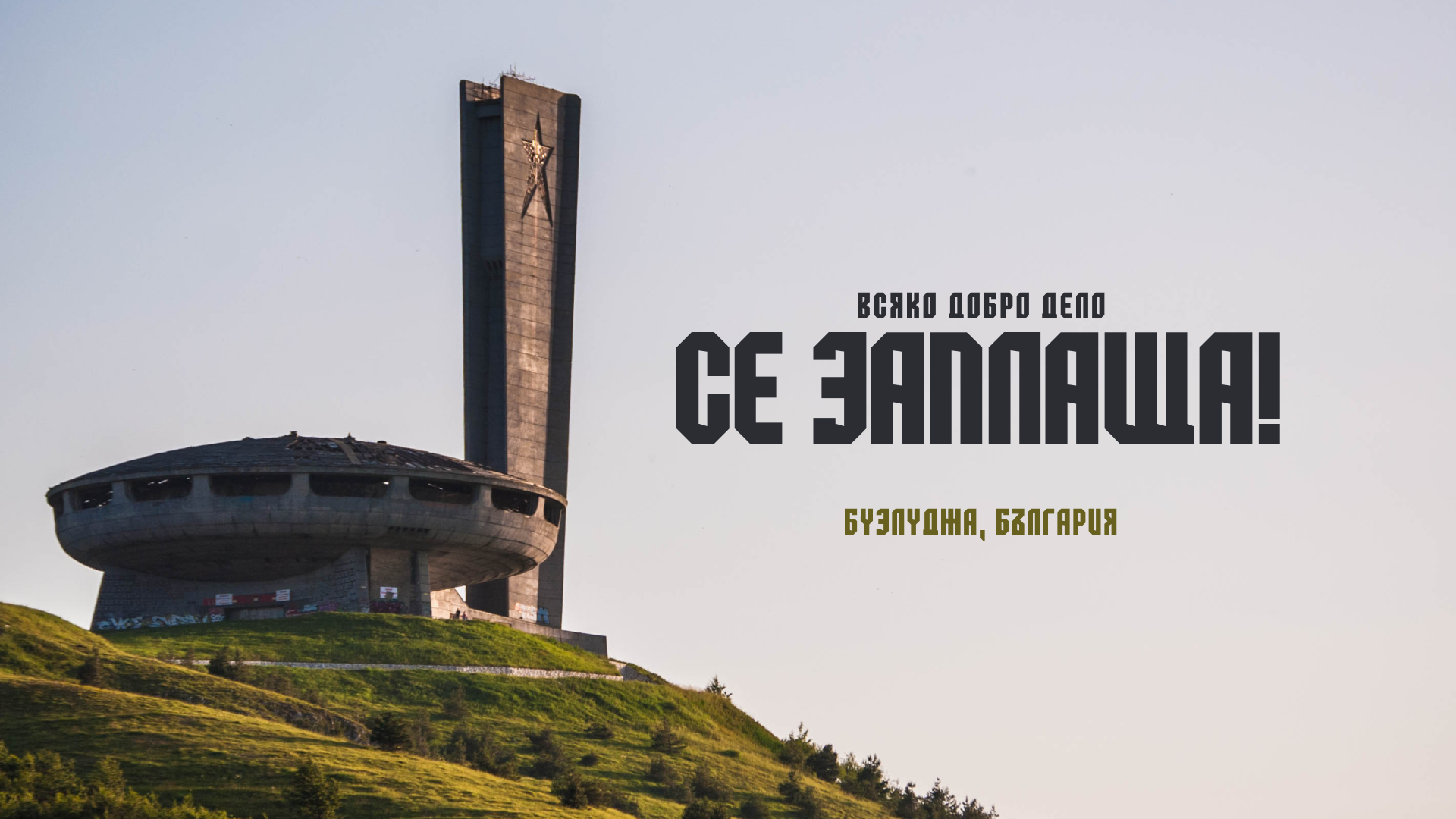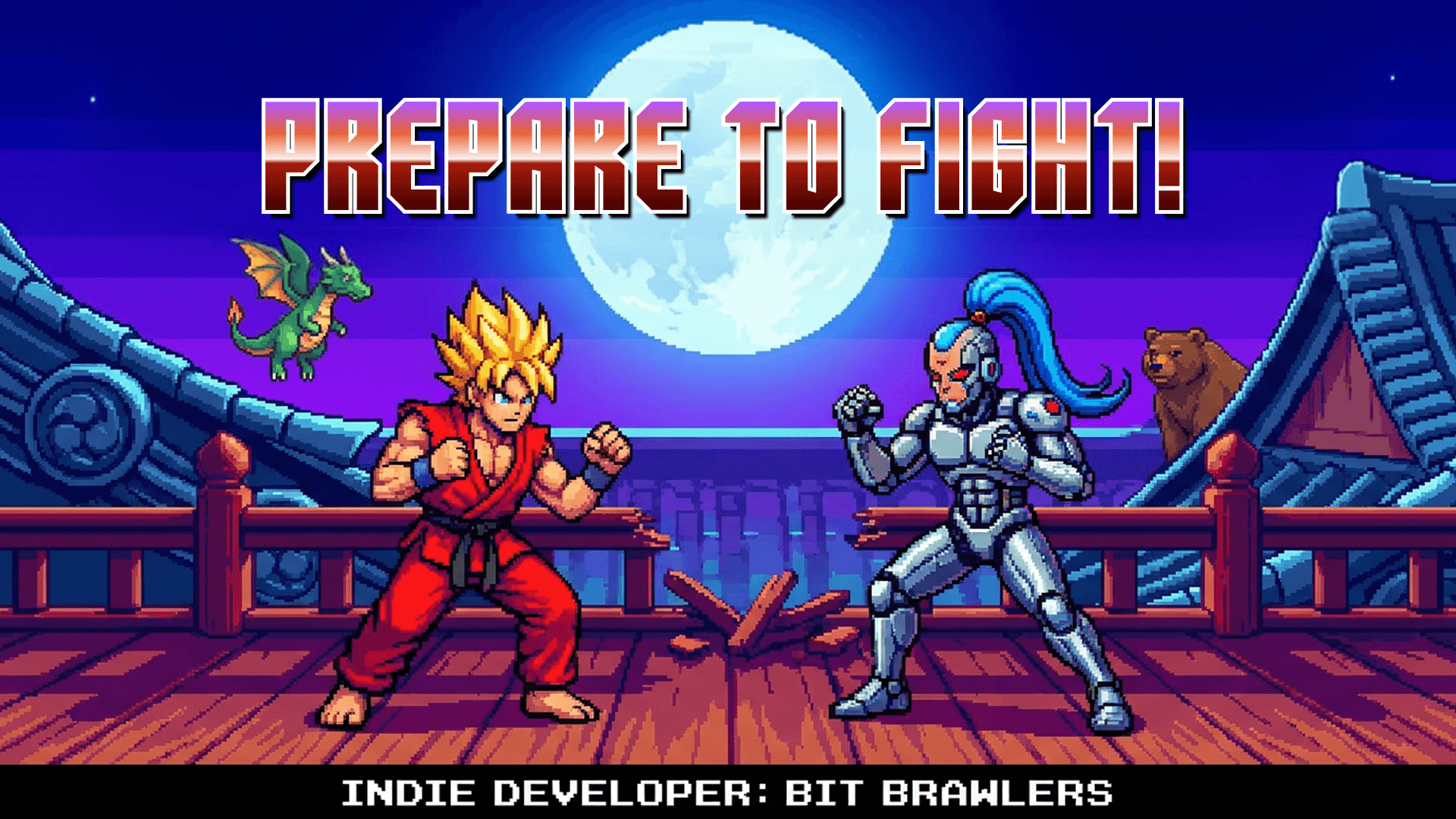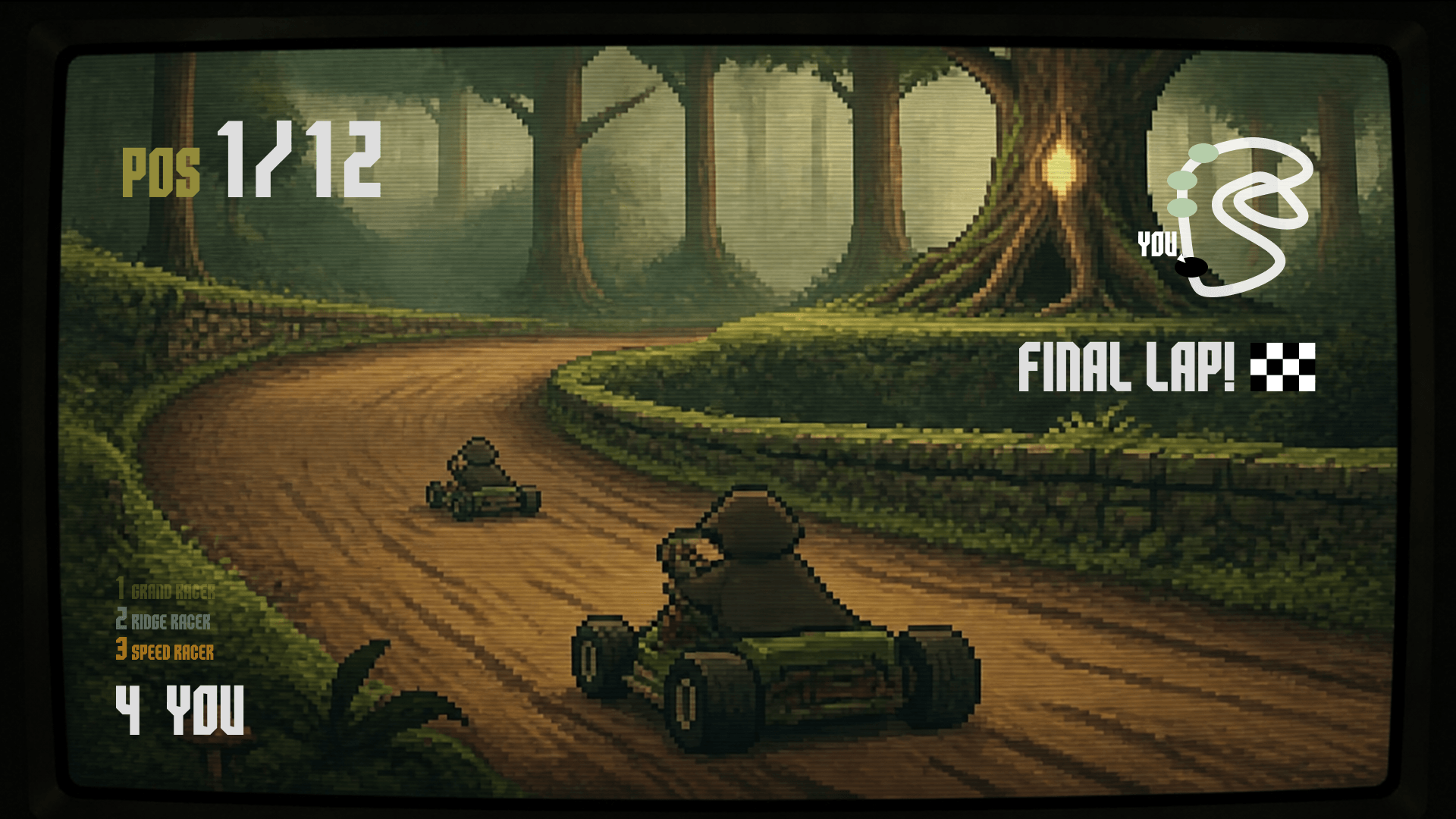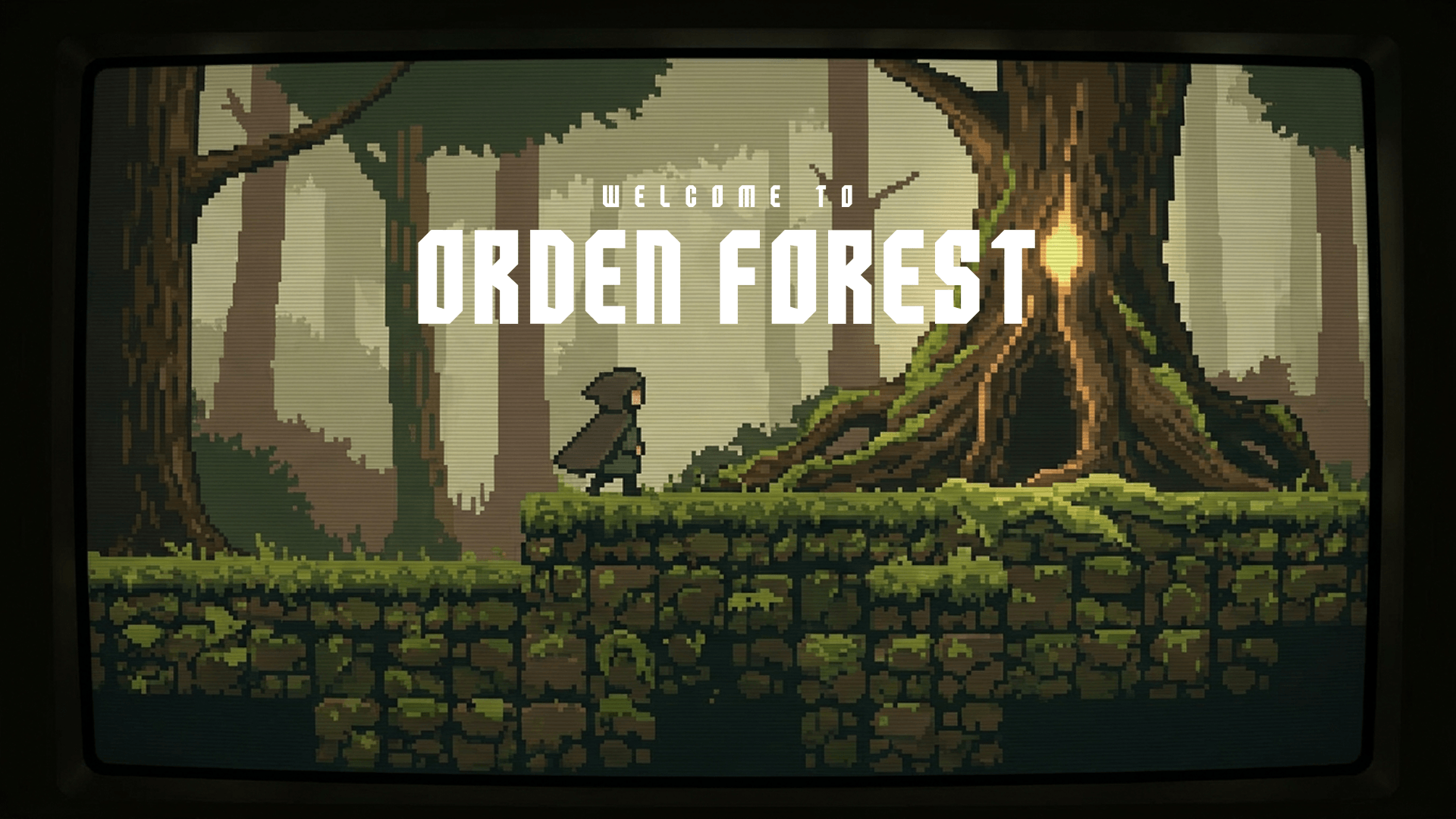
| Family Name | Koysca |
| Designed By | WORSHIP |
| Category | display |
| Languages | Latin and Cyrillic |
Koysca is a free display font inspired by brutalist architecture. It carries the blocky rhythm of concrete structures and a pinch of playful, almost alien motifs. The result is a typeface that feels both monumental and slightly off making it structured, but never sterile.
Koysca supports both Latin and Bulgarian Cyrillic alphabets, with localized uppercase glyphs designed to hold up in bold, large-scale display use. It's built for typography that needs to command attention.
This brutalist display font is a natural fit for video game UI and title screens - like indie RPG openings, racing game interfaces, and fighting game splash screens — as well as old movie posters, retro poster design.